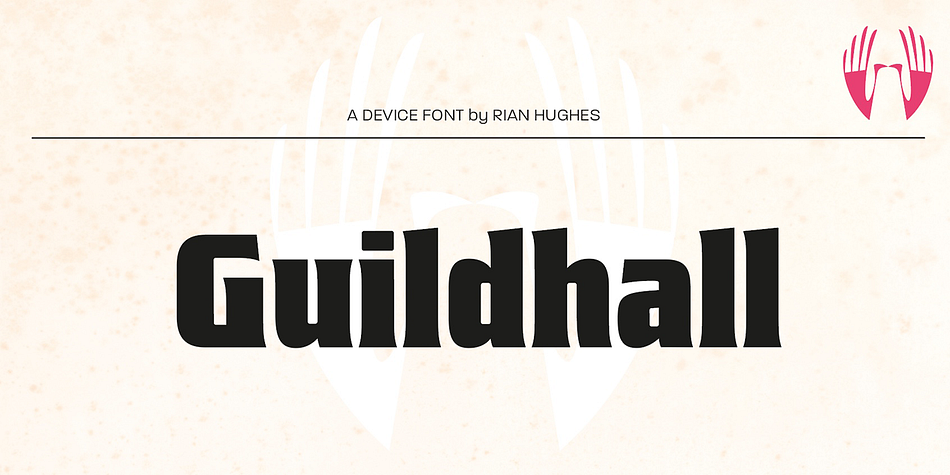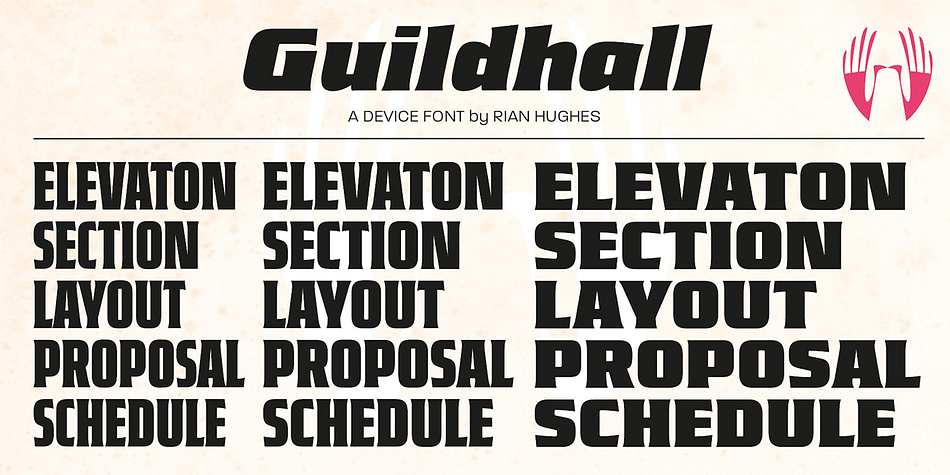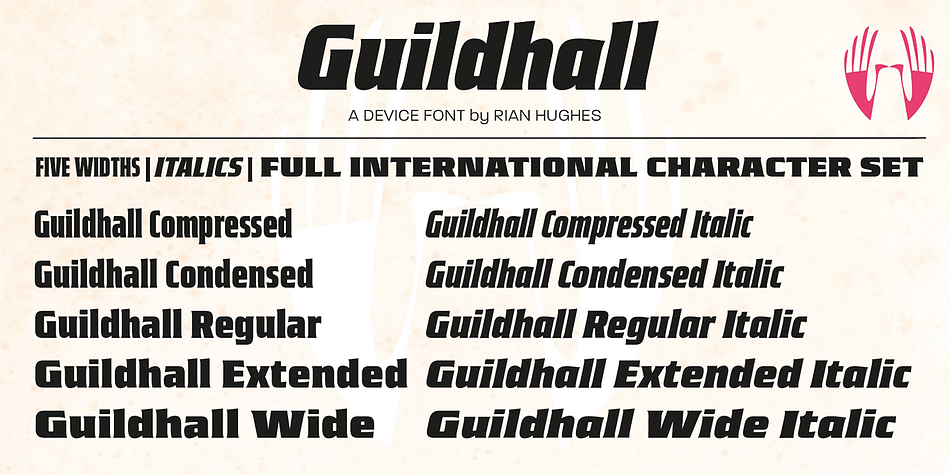
Guildhall
Designed by Rian Hughes, Guildhall is a display serif font family. This typeface has ten styles and was published by Device.
Class, with a punch. It’s rare to find fonts that are refined without being too delicate, stylish while still being bold and impactful. Guildhall is a heavy rectangular flared serif in face widths with matching italics. Suitable for film posters, rock concerts and band logos, beer labels, packaging and magazine headlines.